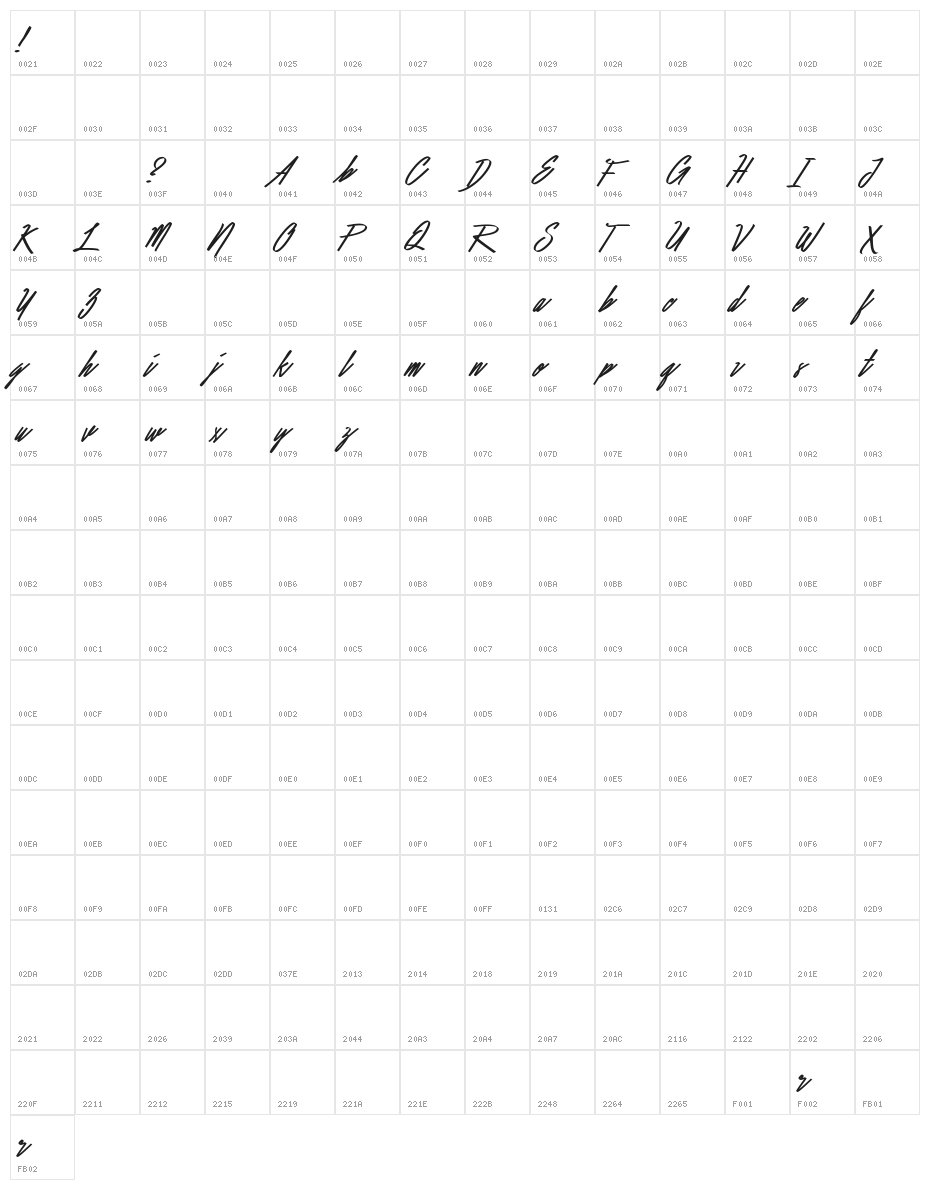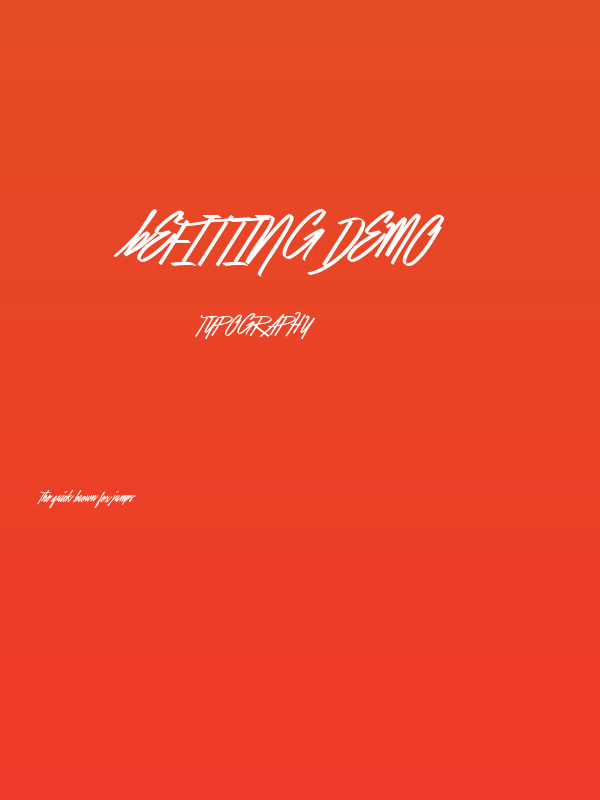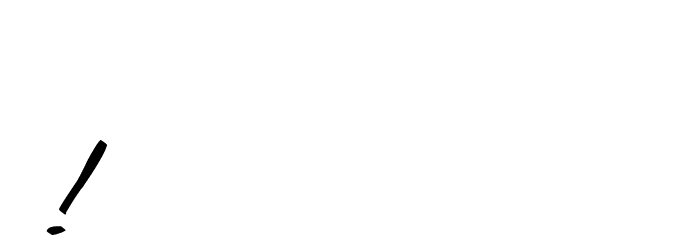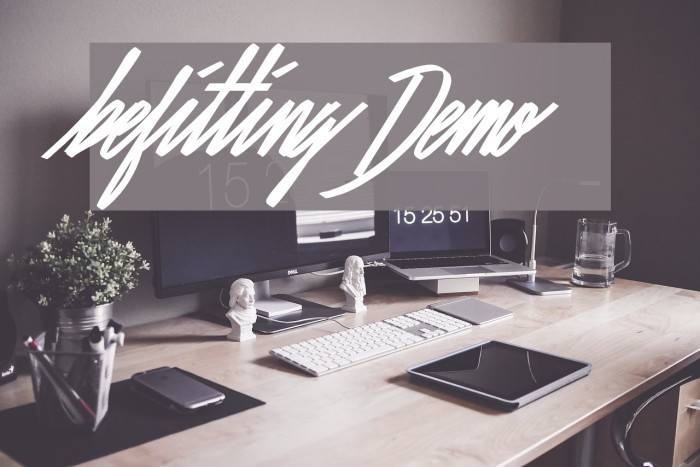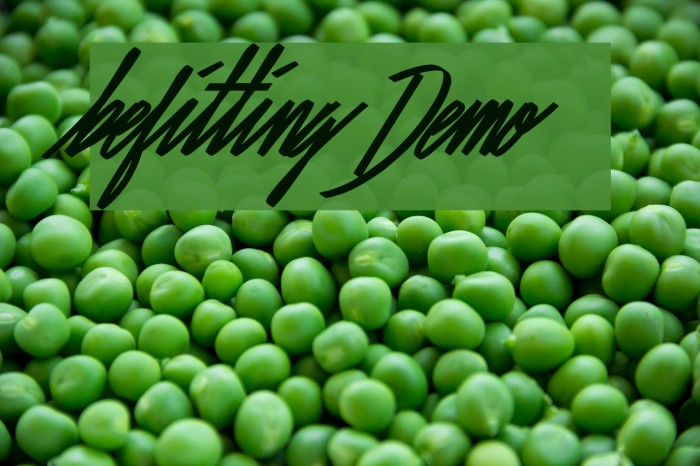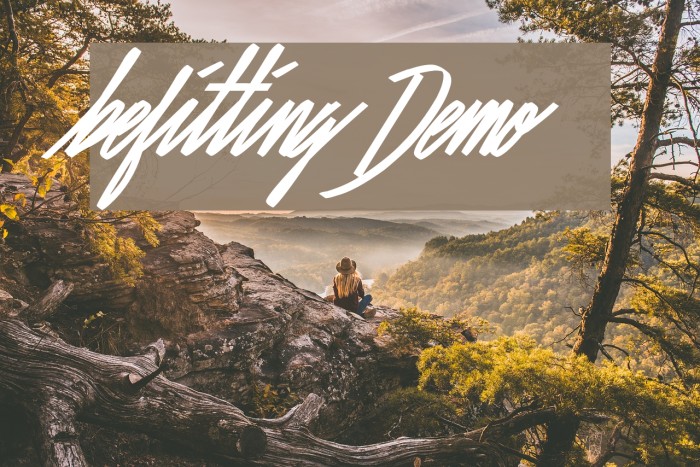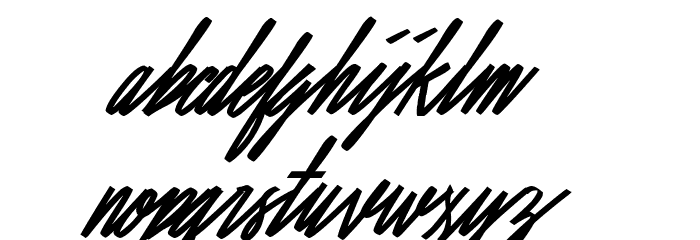
Befitting Demo Font
Befitting Demo Description
This font features a dynamic and expressive script style, characterized by its fluid, handwritten appearance. The letters are connected with smooth, flowing strokes that give it a sense of motion and elegance. The uppercase letters are bold and prominent, while the lowercase letters maintain a consistent flow, enhancing readability. The font's overall design is both stylish and sophisticated, making it suitable for creative and artistic projects. The characters are slightly slanted, adding to the cursive feel, and the strokes vary in thickness, providing a moderate contrast that enhances its visual appeal.
| Use Case | Logos, Headlines, Decorative text |
| Proposed Projects | Ideal for wedding invitations, greeting cards, branding projects, and artistic designs. |